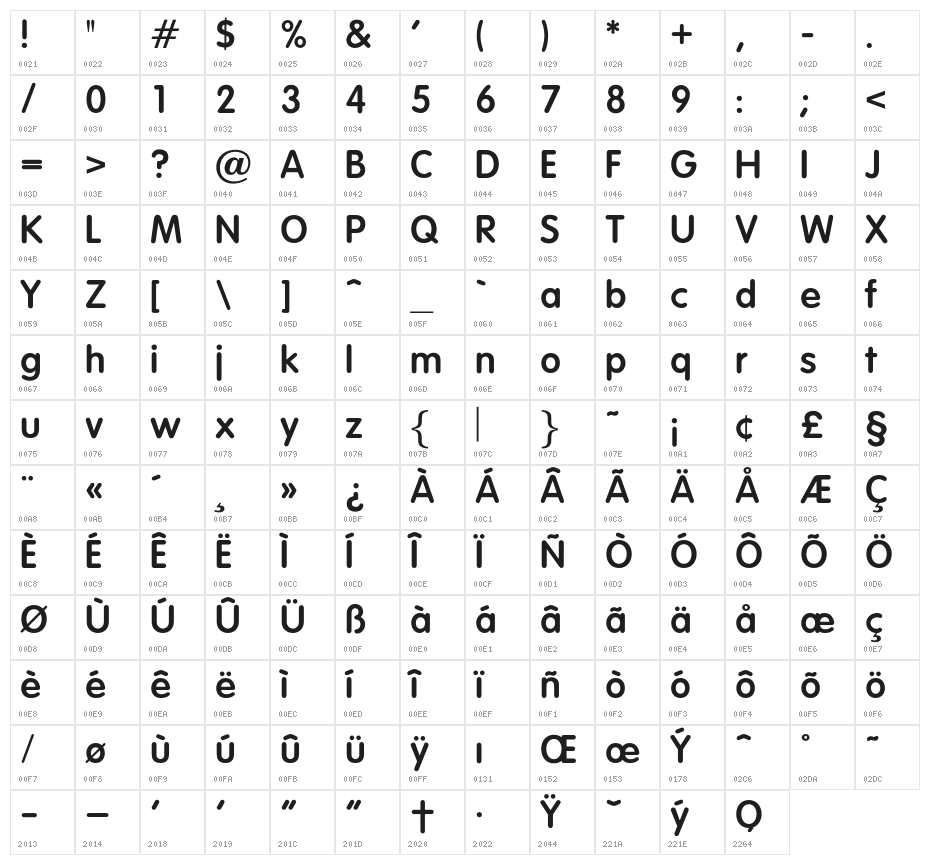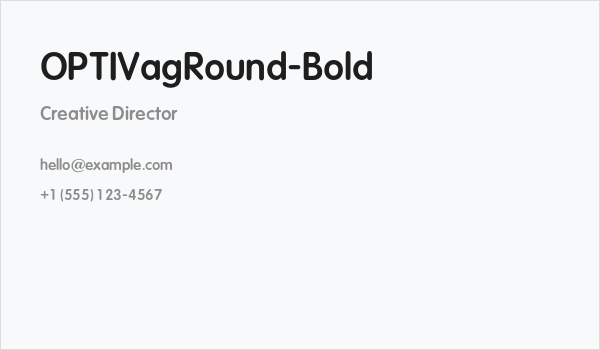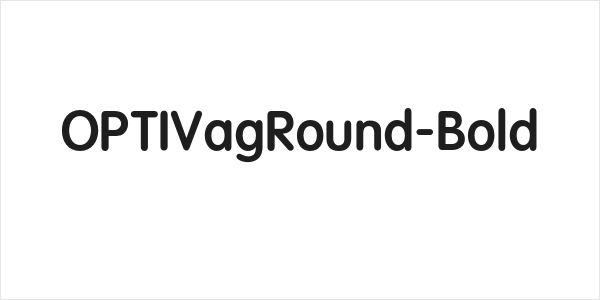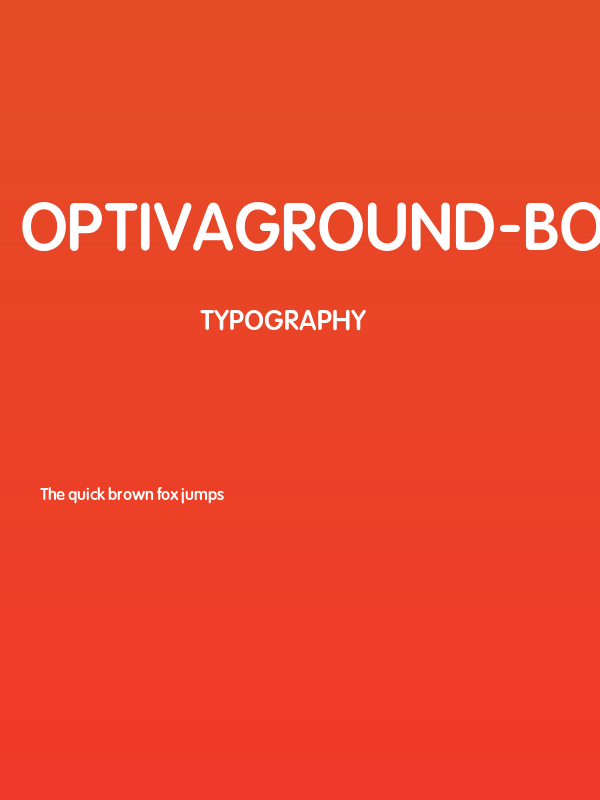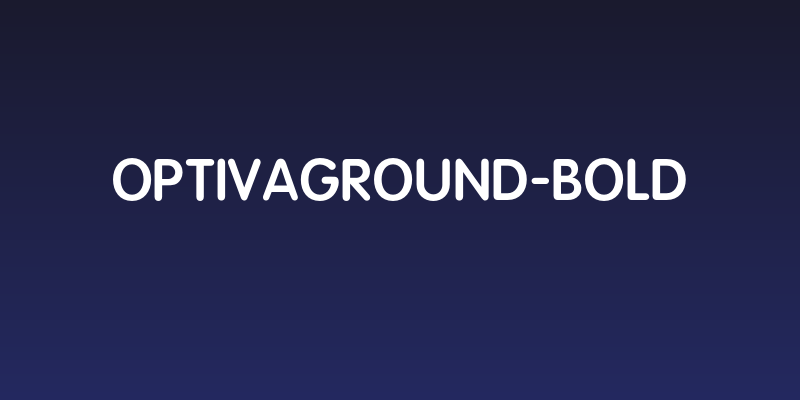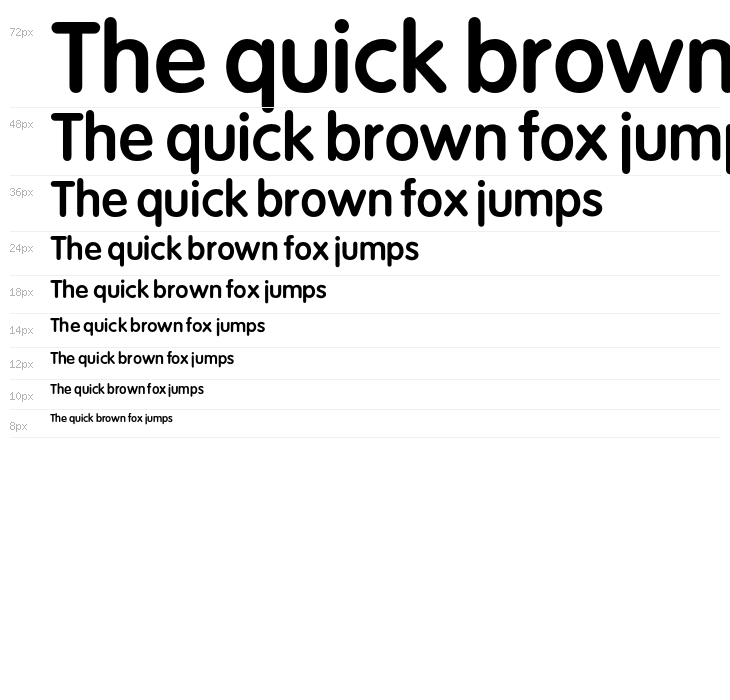
OPTIVagRound-Bold Font
| Anwendungsfall | Headlines, Logos, Branding |
| Vorgeschlagene Projekte | Ideal for branding, advertising, packaging, and web design projects where a modern and approachable look is desired. |